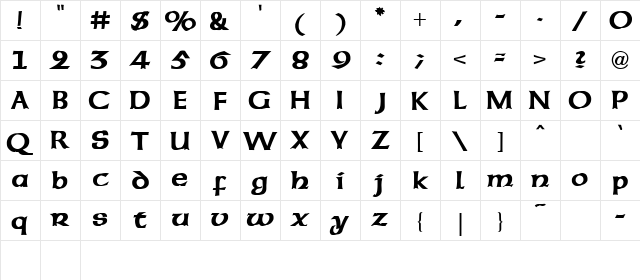
CORSAGE Regular
Design Context for CORSAGE Typeface
CORSAGE takes a measured approach to typography — its balanced proportions and neutral character make it a reliable workhorse for both digital and print work.
Pro Tip: Use CORSAGE in both headline and body roles to test its range before committing to a single application.